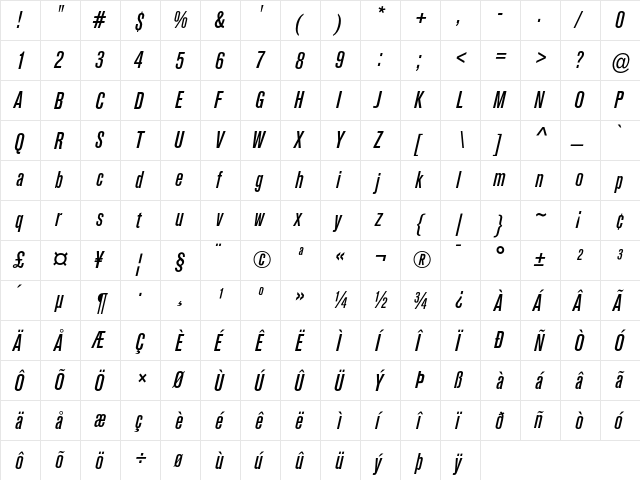
Akzidenz-Grotesk BQ Medium Condensed Italic Alt Font Preview
Design Context for Akzidenz-Grotesk BQ Typeface
Akzidenz-Grotesk BQ takes a clean, functional approach — its unadorned letterforms prioritise legibility and work reliably across screen and print environments. The dynamic lean of this cut emphasises speed and emphasis in any layout. The condensed width makes it efficient for tight spaces without sacrificing legibility.
Font Pairing: Works well alongside a characterful serif or display font that can carry the expressive load while Akzidenz-Grotesk BQ handles the functional copy.
Pro Tip: Use Akzidenz-Grotesk BQ tightly set in headlines and banners — its condensed proportions make it ideal for maximum impact in minimum horizontal space.